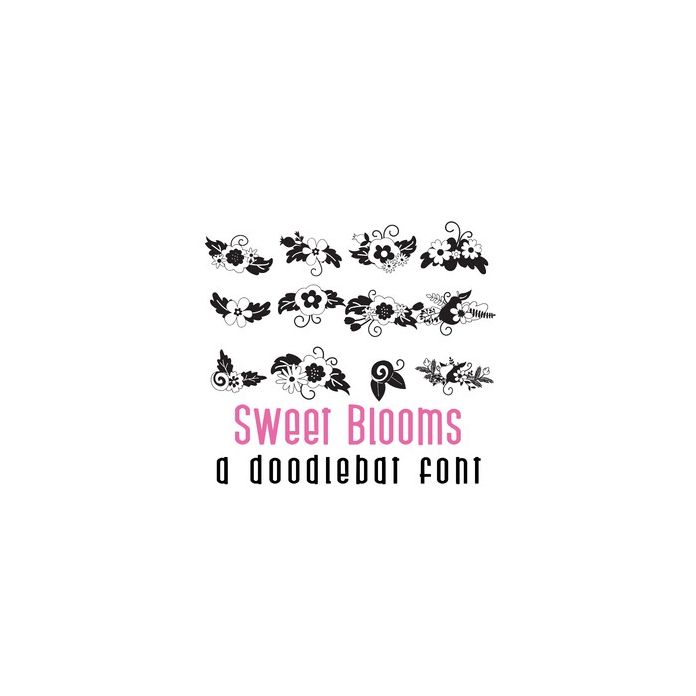
This beautiful doodlebat font features 26 floral arrangements. Perfect for Spring, Mother's Day, cards, crafts, gifts, decor, scrapbook pages, planner stickers, and more!